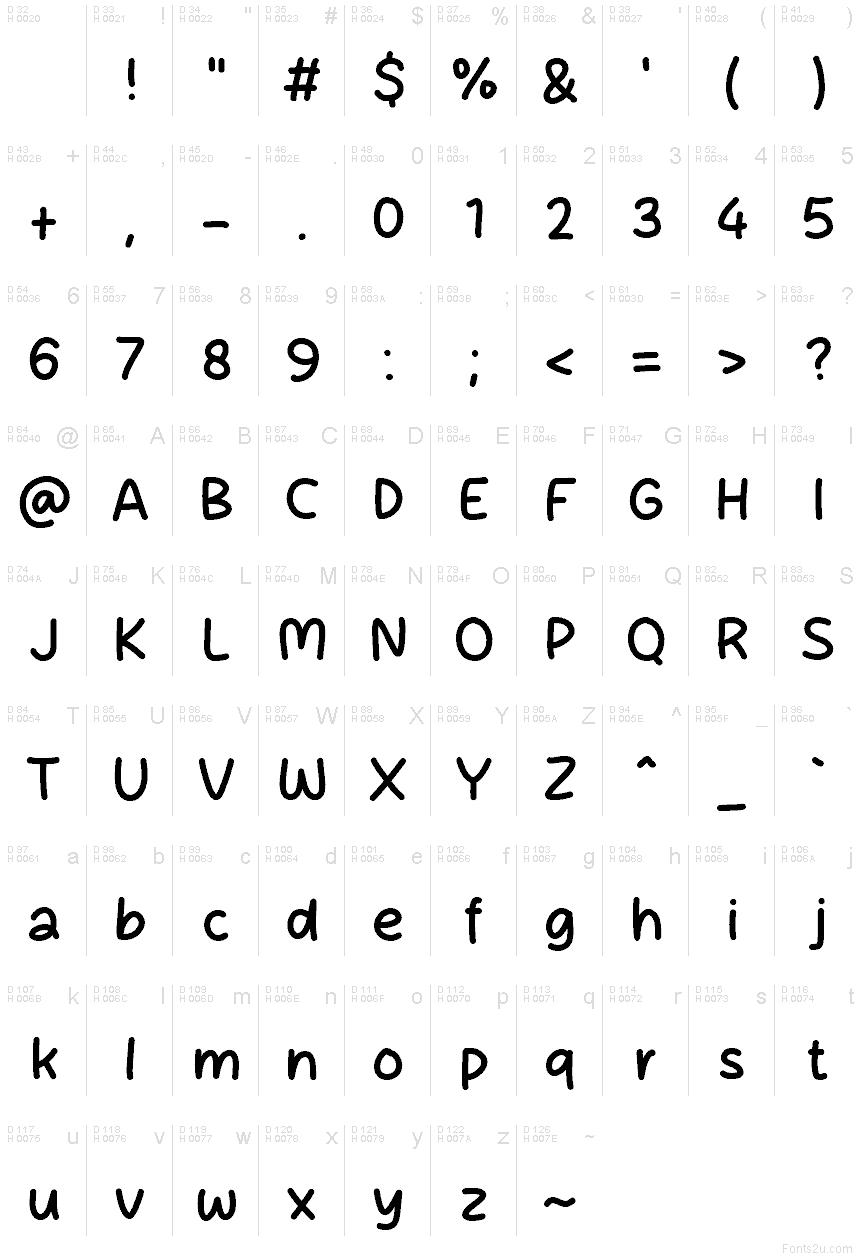
Gurame Fish
Gurame Fish font by Origin Type is a breezy and modern handwritten font that gives an approachable aesthetic to any project. With its friendly look, it carries a casual vibe perfectly tuned for designs needing a personal touch.
This free handwritten font fits wonderfully in greeting cards, invitations, social media graphics, posters, branding projects, packaging design, blogs, quotes displays or even as a logo or watermark.